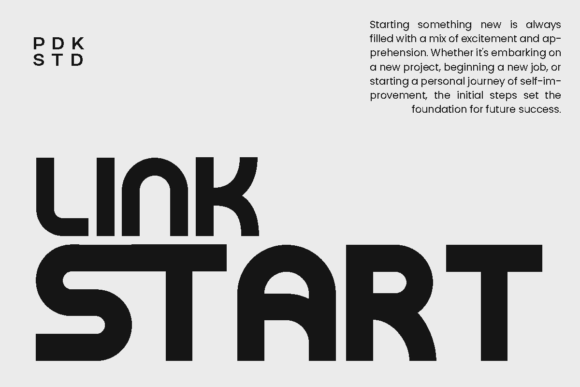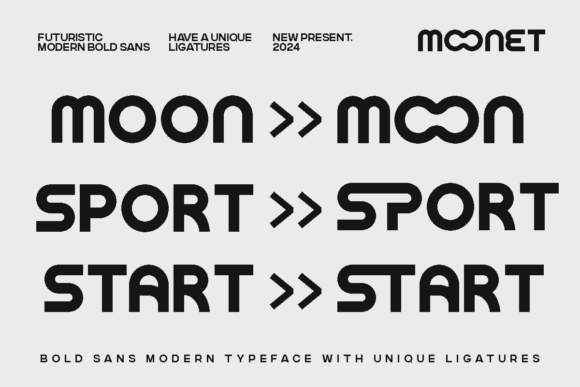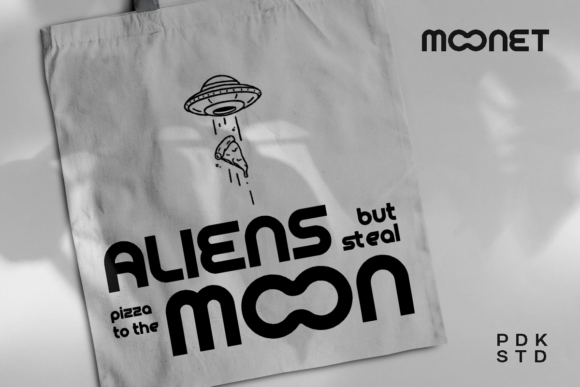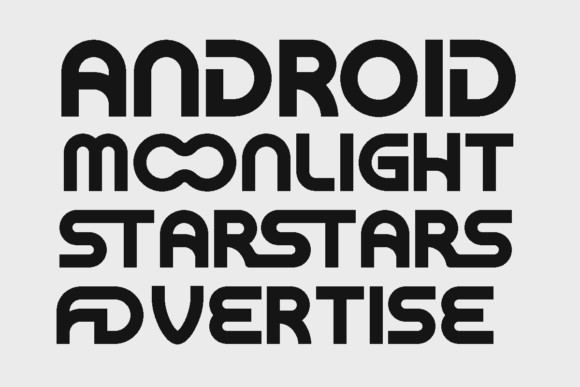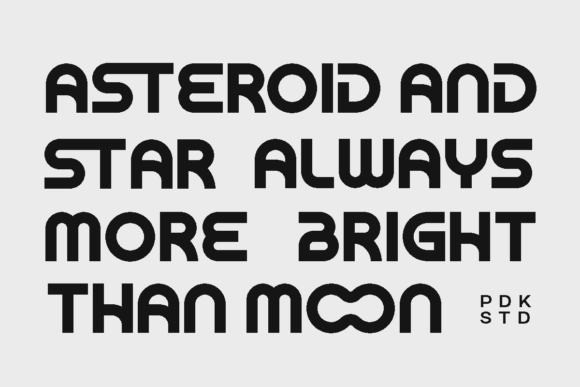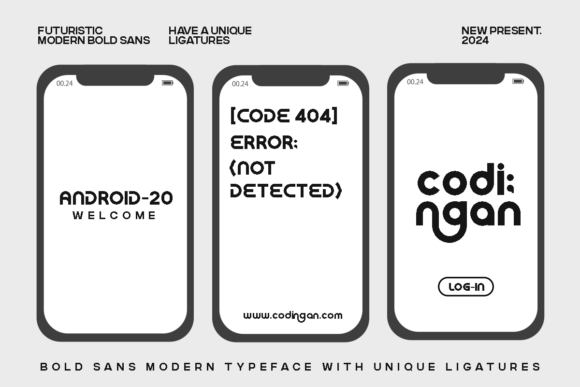
Introduction to Moonet Font
Have you ever been in the middle of a creative project, staring at a blank canvas, and suddenly, a spark of inspiration hits you? For designers, this moment is what makes all the late nights and endless brainstorming sessions worth it. For me, that moment came when I discovered the Moonet Font – a game-changing, high-quality design resource that elevates any project to the next level.
With its unique ligatures and minimalist yet luxurious design, the Moonet Font is the perfect tool for designers looking to give their branding a futuristic and modern look. Whether you’re working on a high-end campaign or a personal project, this stunning typeface is sure to make a lasting impression. And the best part? It’s available for a free download, making it an invaluable resource for designers of all levels.
From design templates to editorial designs, the Moonet Font is the perfect addition to any creative project. Its transparent background and sleek design make it easy to use and customize, giving you the freedom to experiment and push the boundaries of your design. So why settle for ordinary when you can have extraordinary with the Moonet Font?
Key Features of Moonet Font
- Features a transparent background, allowing for easy layering and customization
- Includes a range of characters and glyphs, including international characters and symbols
- Unique and modern design aesthetic, perfect for adding a touch of elegance to any creative project
Honest Review: Moonet Font
I recently had the opportunity to work with the Moonet Font, and I must say, it’s been a game-changer for my creative projects. The high quality of this font is truly impressive, making it a valuable design resource for any serious designer.
One of the standout features of the Moonet Font is its versatility. I was able to use it for a wide range of projects, from branding to print materials, and it always looked professional and polished.
Here are some of the things that work well with the Moonet Font:
- ✨ Transparent background, allowing for seamless integration into any design
While the Moonet Font is an excellent resource, there are a few limitations to be aware of:
- ⚠️ Limited character set, which may not be suitable for complex text-based projects
Overall, I’m thoroughly impressed with the Moonet Font. Its high quality and versatility make it an excellent addition to any designer’s toolkit. With a few minor limitations in mind, I highly recommend giving it a try.
Tips for Getting the Most Out of Moonet Font
Use the Moonet Font on a transparent background to create a modern and sleek design. Experiment with different font sizes and styles to create visual interest. Use the Moonet Font in combination with other design elements to create a unique and creative project.
Common Use Cases for Moonet Font
The Moonet Font is suitable for a variety of creative projects, including logos, business cards, and social media graphics. Its high-quality design makes it perfect for use in professional settings. You can also use the Moonet Font in personal projects, such as blog posts and presentations.
Does the Moonet Font have a transparent background?
Yes, the Moonet Font has a transparent background, making it easy to use with various backgrounds and design elements. This feature allows for greater flexibility and creative freedom in your design projects.
Can I customize the Moonet Font?
Yes, the Moonet Font can be customized to suit your specific design needs. You can adjust the font size, color, and style to match your project’s requirements. Additionally, you can also use font editing software to modify the font’s characteristics.